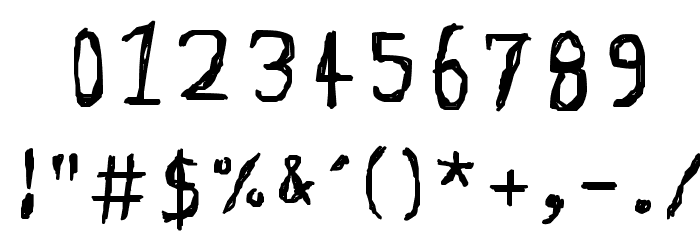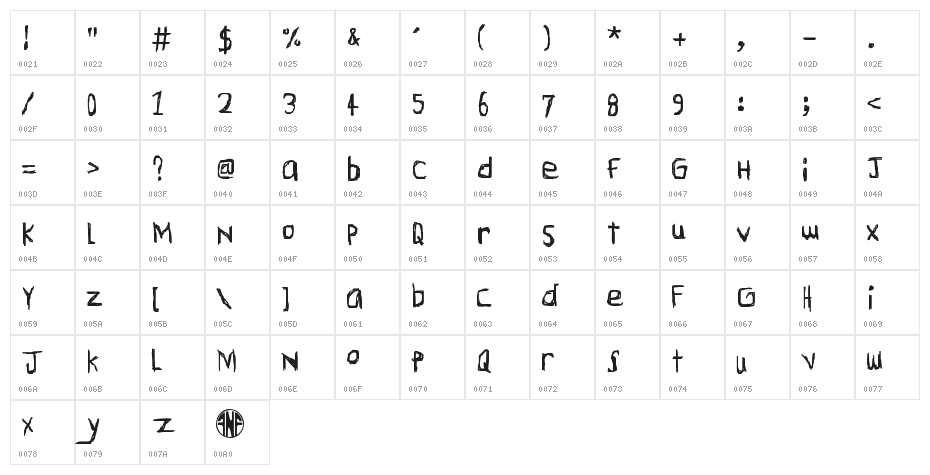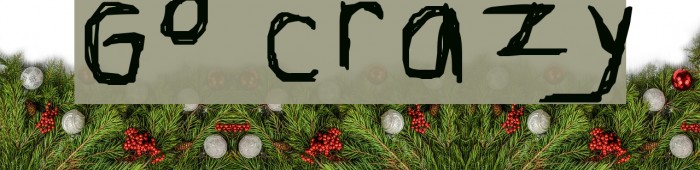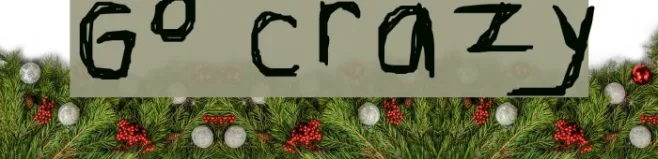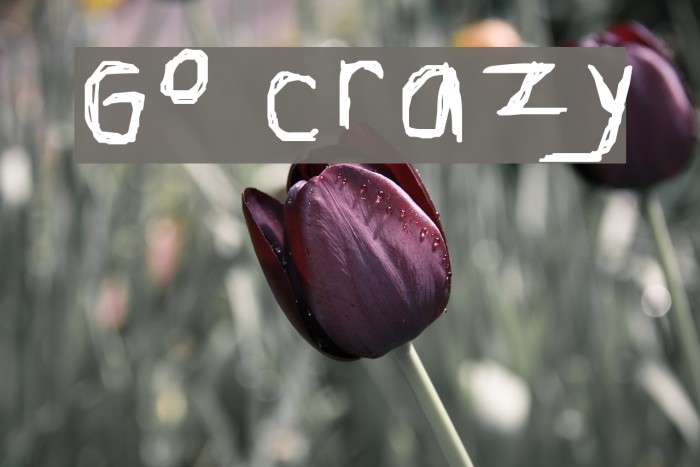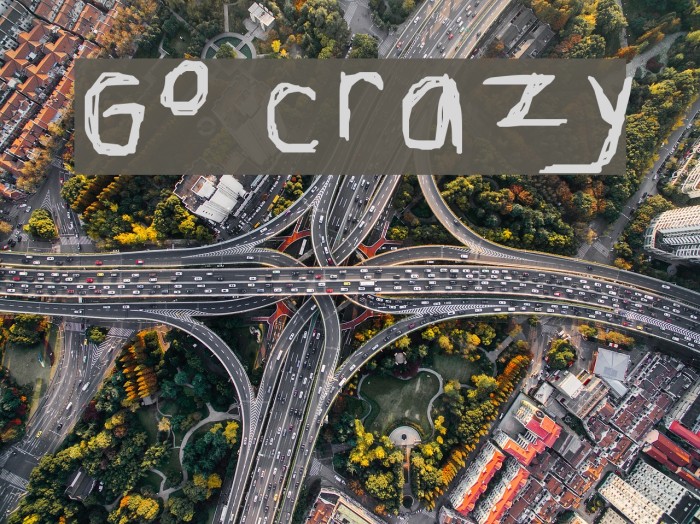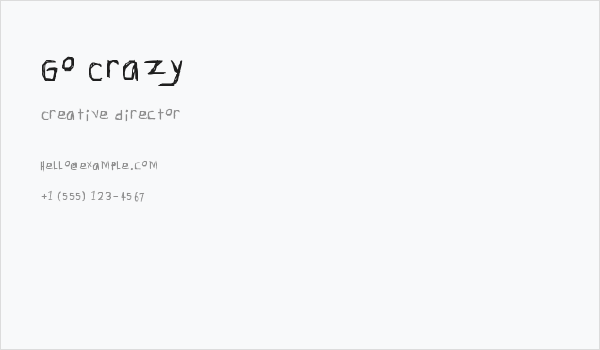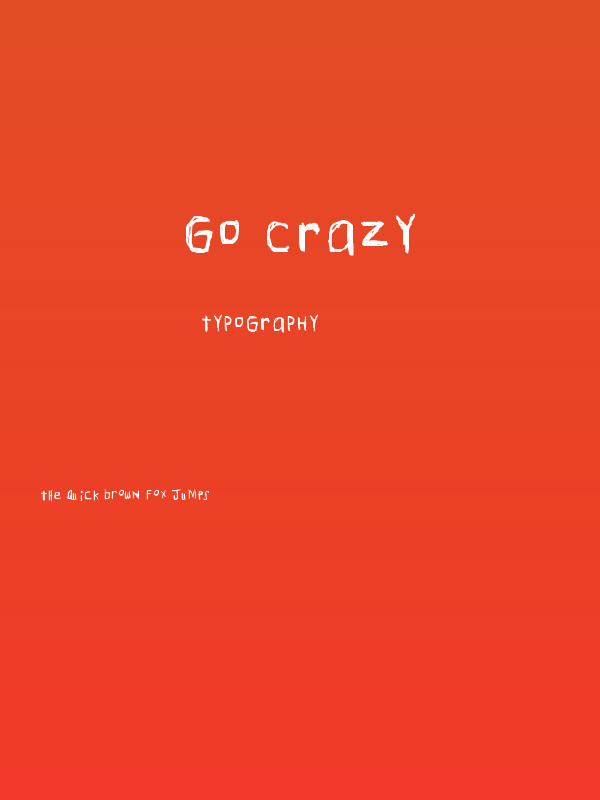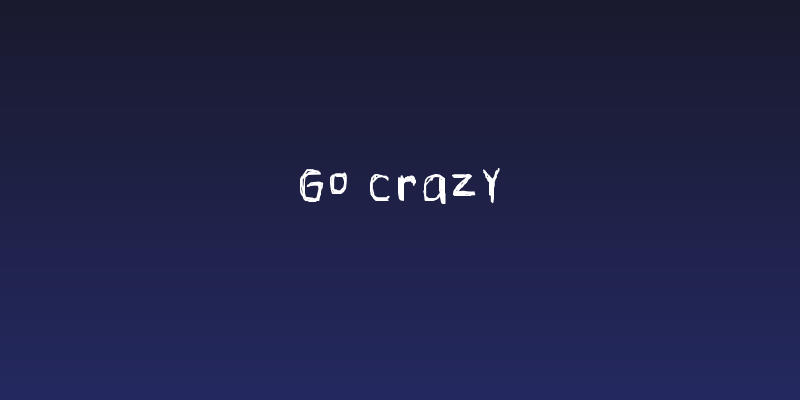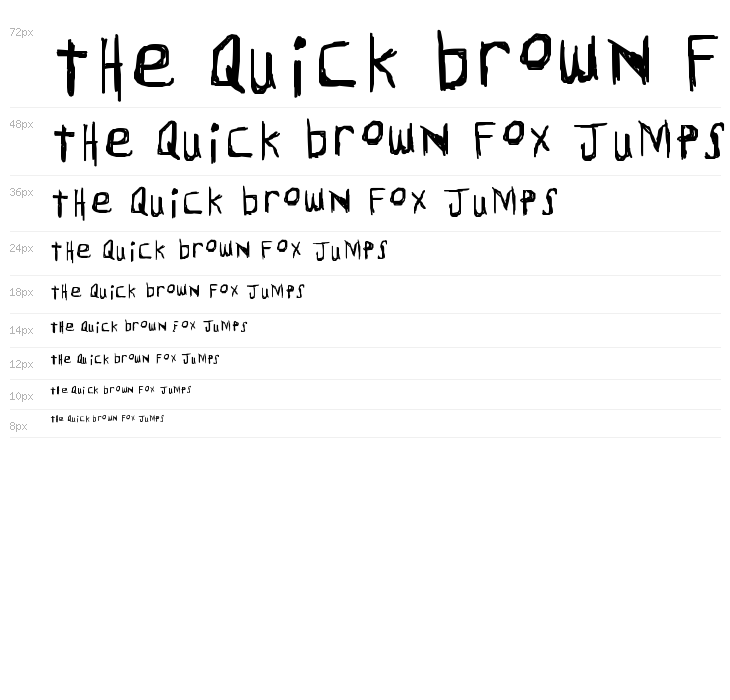
Go Crazy Font
Go Crazy Description
This font features a bold, hand-drawn style with uneven strokes and a slightly chaotic appearance. Each character is unique, giving an organic and spontaneous feel. The uppercase and lowercase letters maintain a consistent height, while the numbers and special characters follow the same rough, sketch-like aesthetic. The overall design is playful and energetic, with a raw, artistic edge that suggests a sense of movement and creativity. The irregularities in the lines add to its charm, making it suitable for projects that require a personal, handmade touch.
| Proposed Projects | Ideal for creative projects such as posters, album covers, children's books, and artistic branding. |